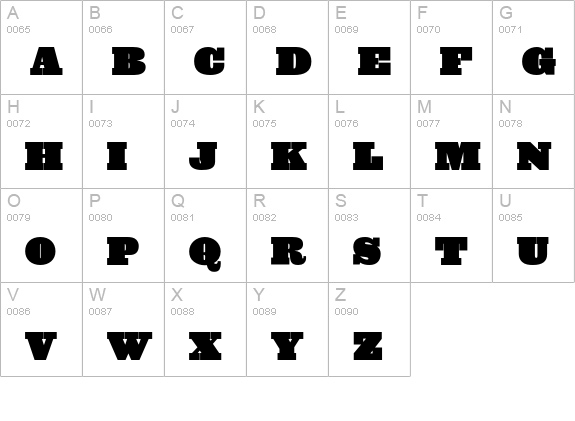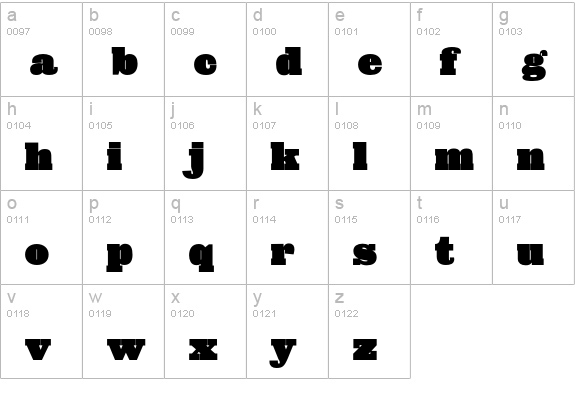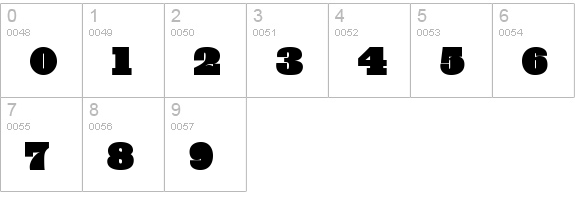
Giza-NineFive font is a modern and stylish typeface that exudes elegance and sophistication. With its sleek lines and contemporary design, this font is perfect for a wide range of projects, from branding to advertising to web design. The clean and legible characters make it a versatile choice for both print and digital media. What sets Giza-NineFive font apart is not only its aesthetic appeal but also the fact that it is completely free to download. This means that you can enhance your creative projects without having to worry about breaking the bank. You can easily access this font at FontsMarket.com, where it is available for free download. Whether you're looking to add a touch of class to your next design project or simply want to experiment with a new font style, Giza-NineFive is sure to impress. Download it today and elevate your designs with this stunning typeface.